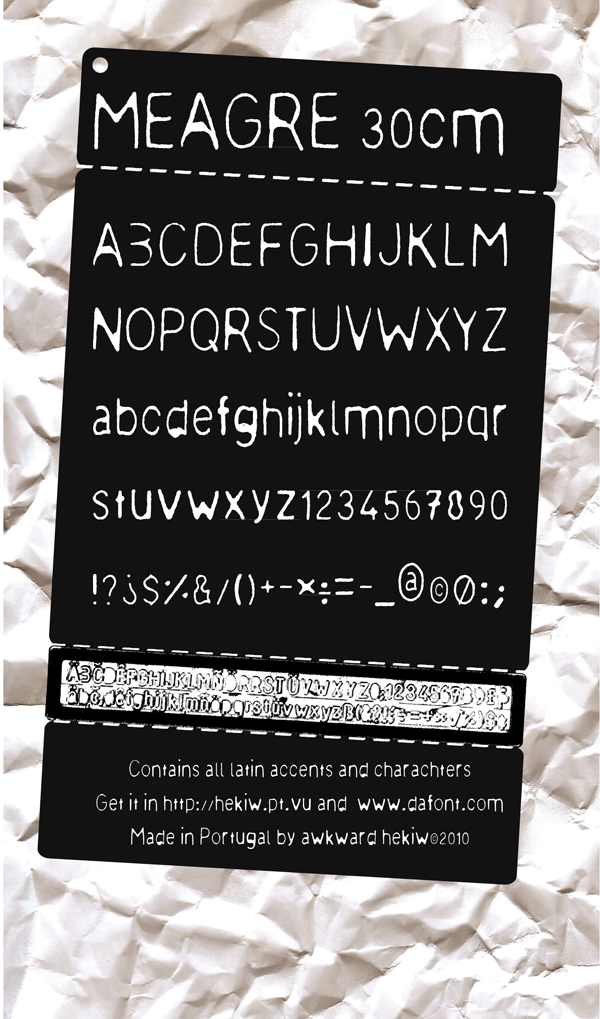
Preview and download Meagre Font. Created by Awkward Hekiw in Fancy Eroded styles
Font name: | Meagre |
Author: | Awkward Hekiw |
Note by Awkward Hekiw | |
Based on a plastic ruller matrix. Hav fun! |